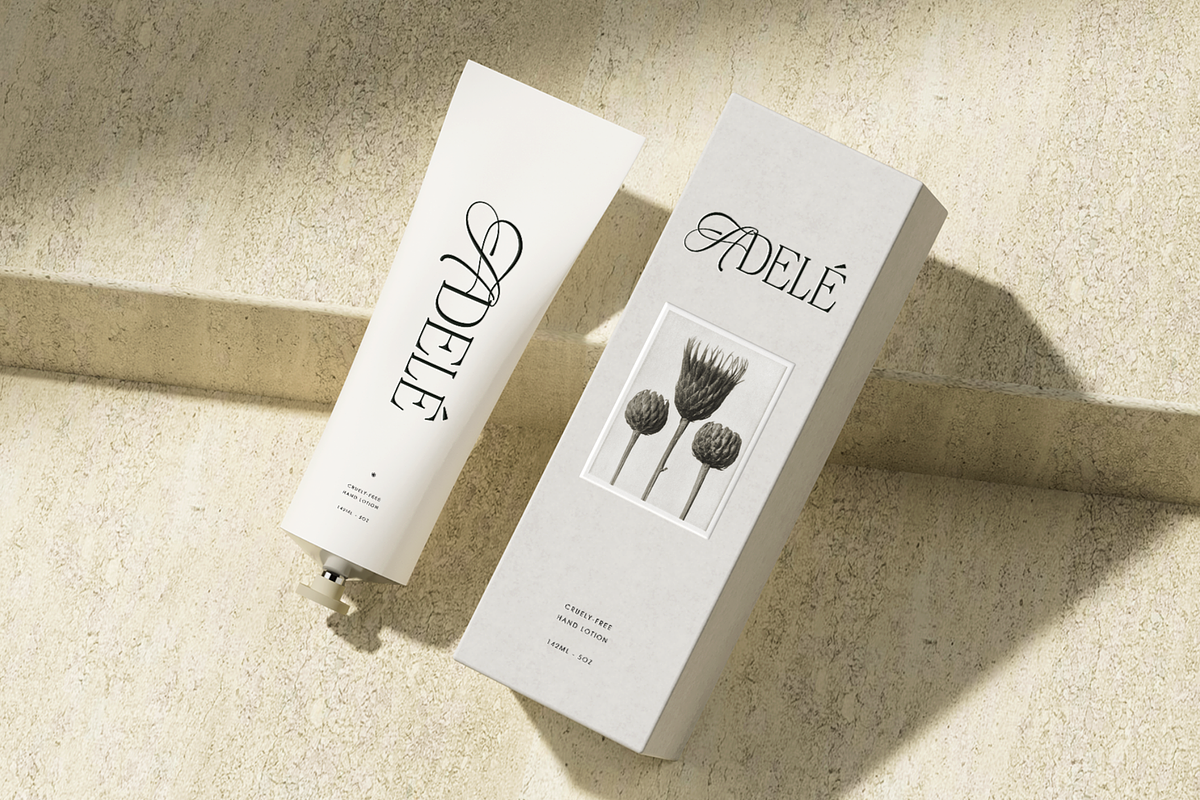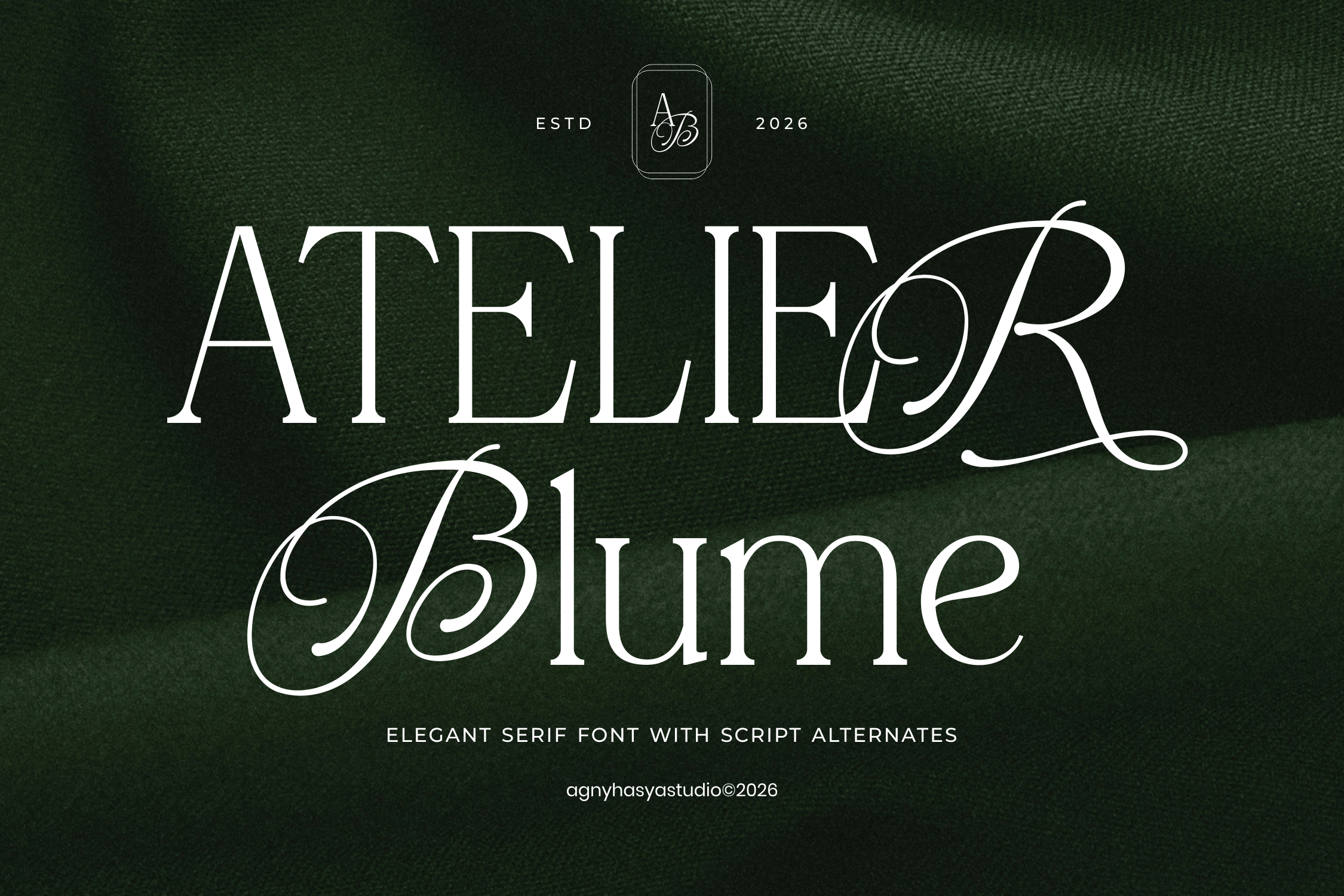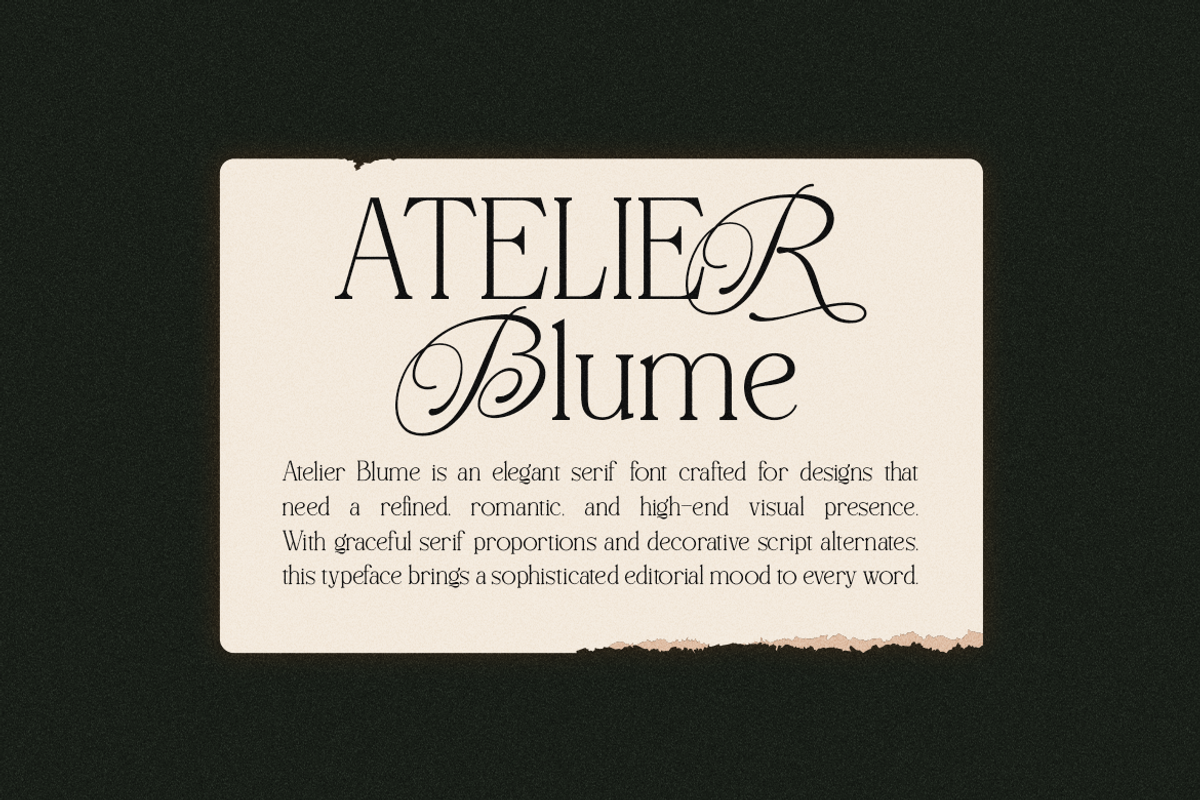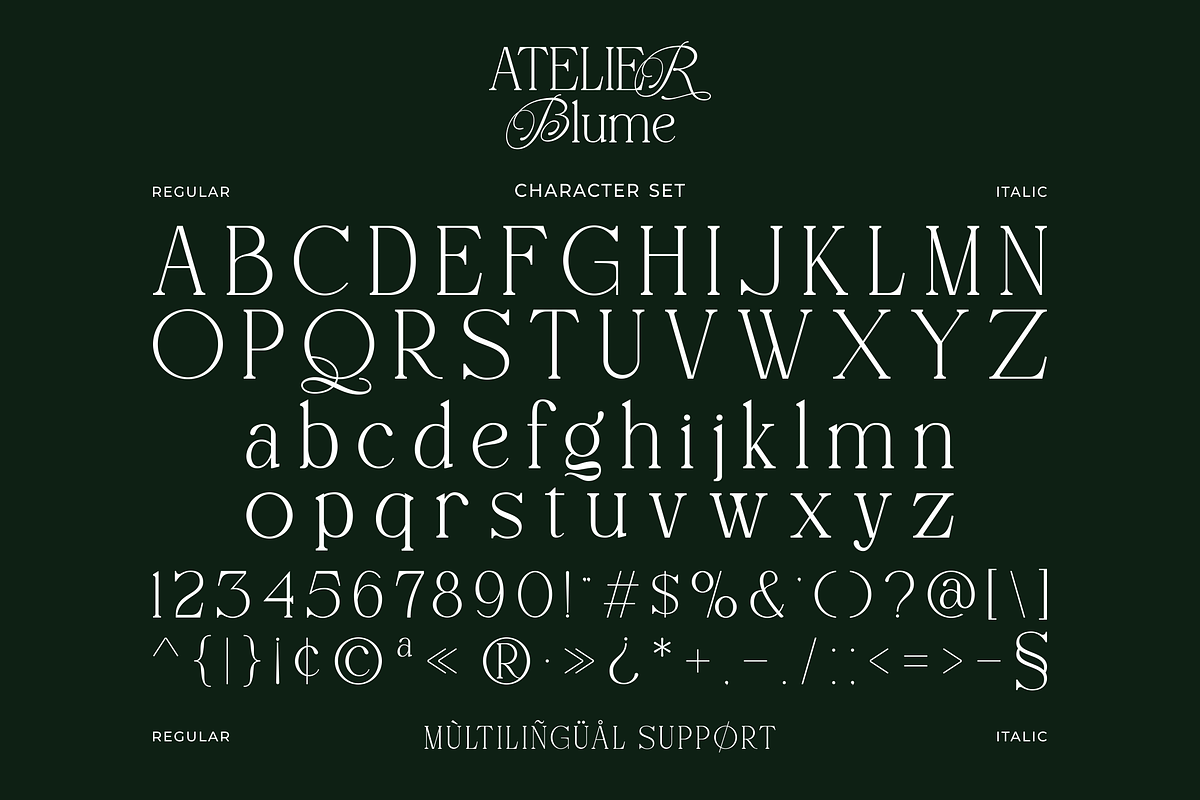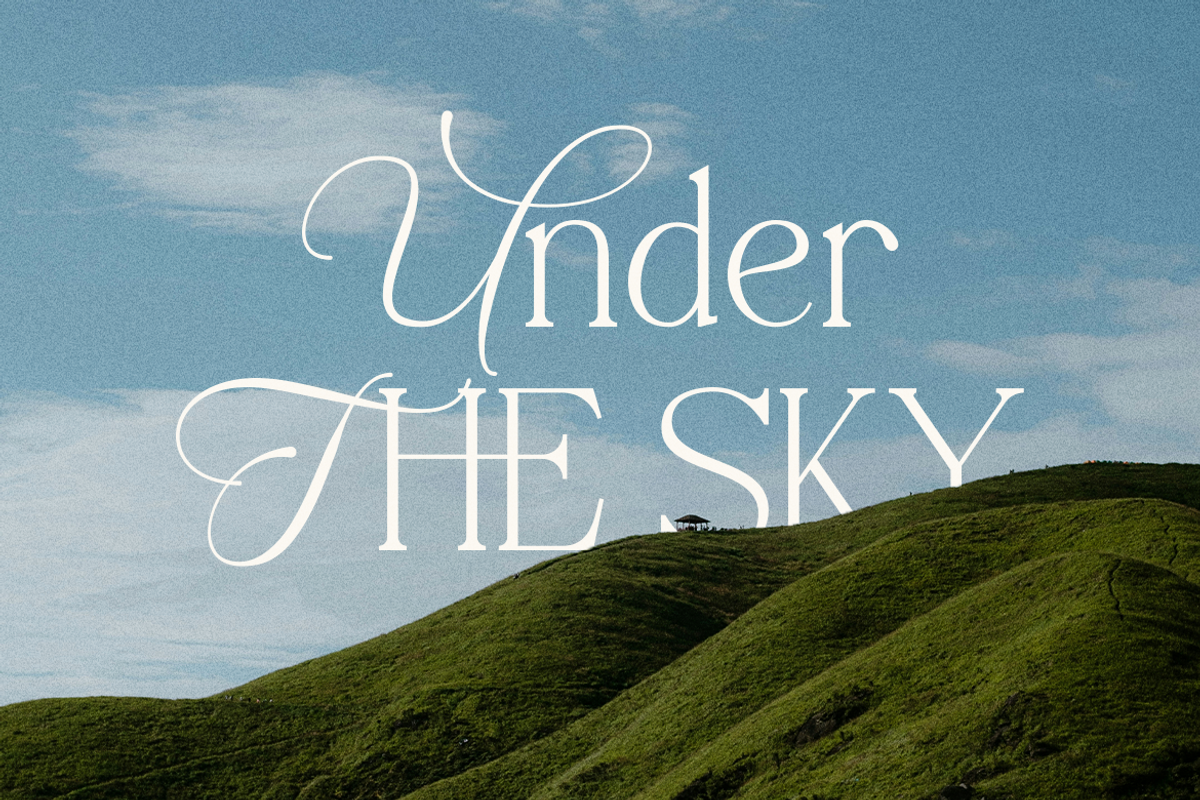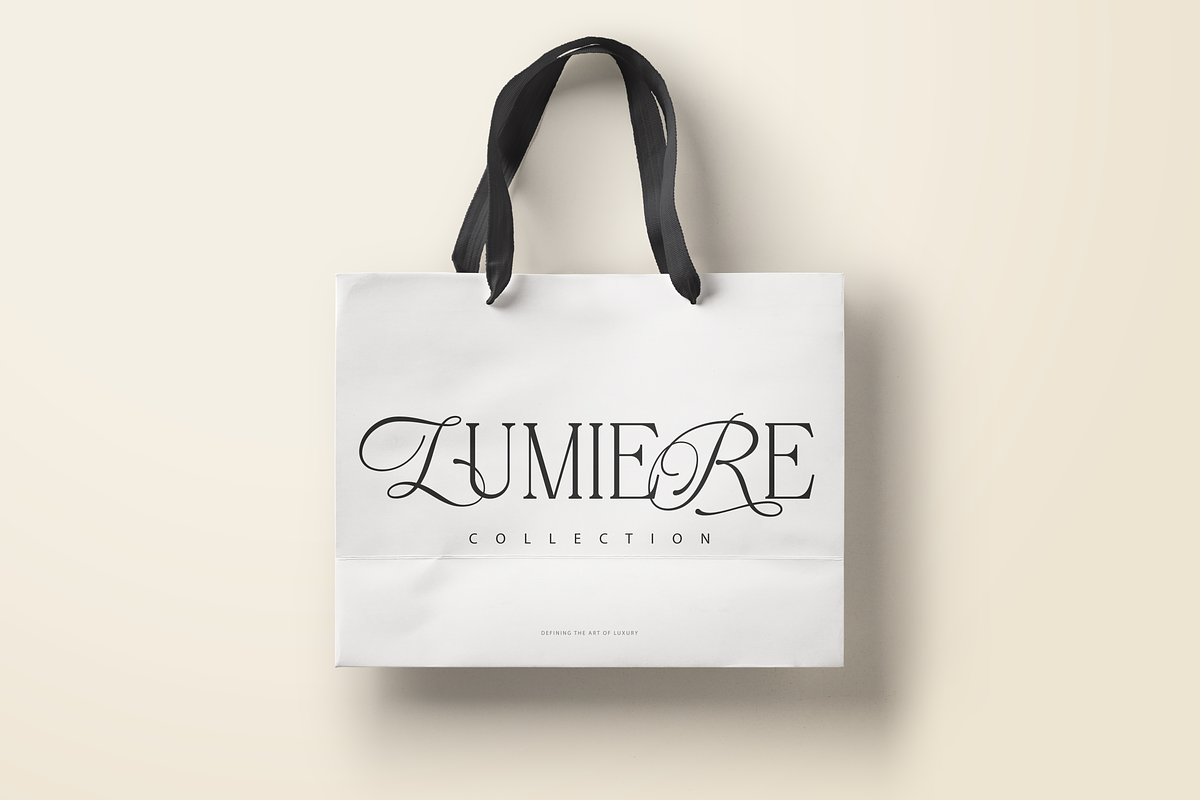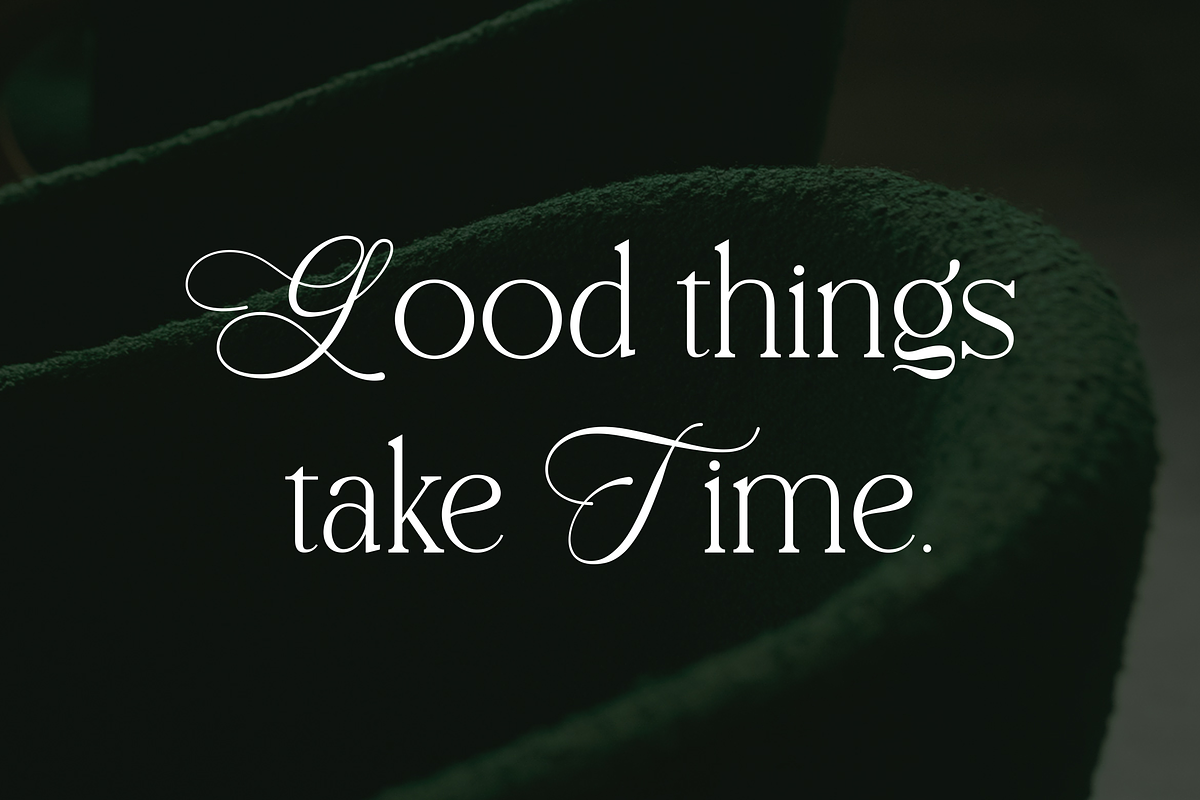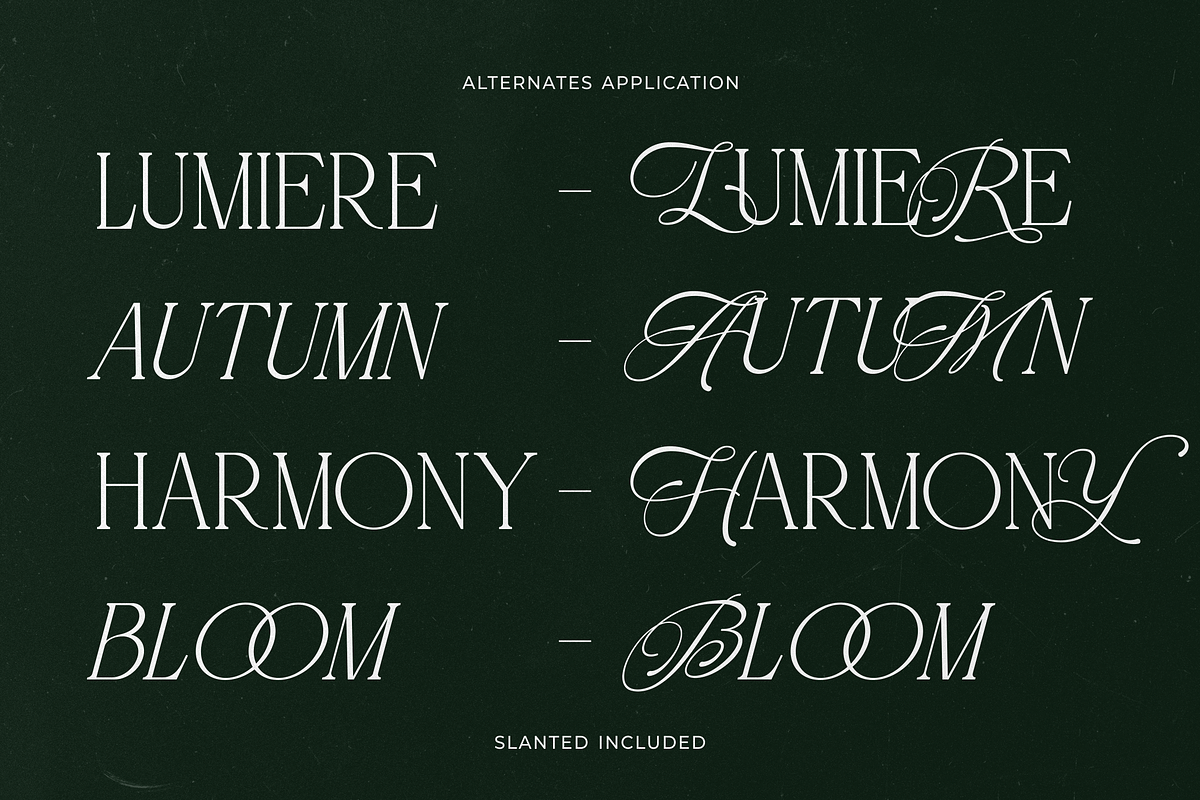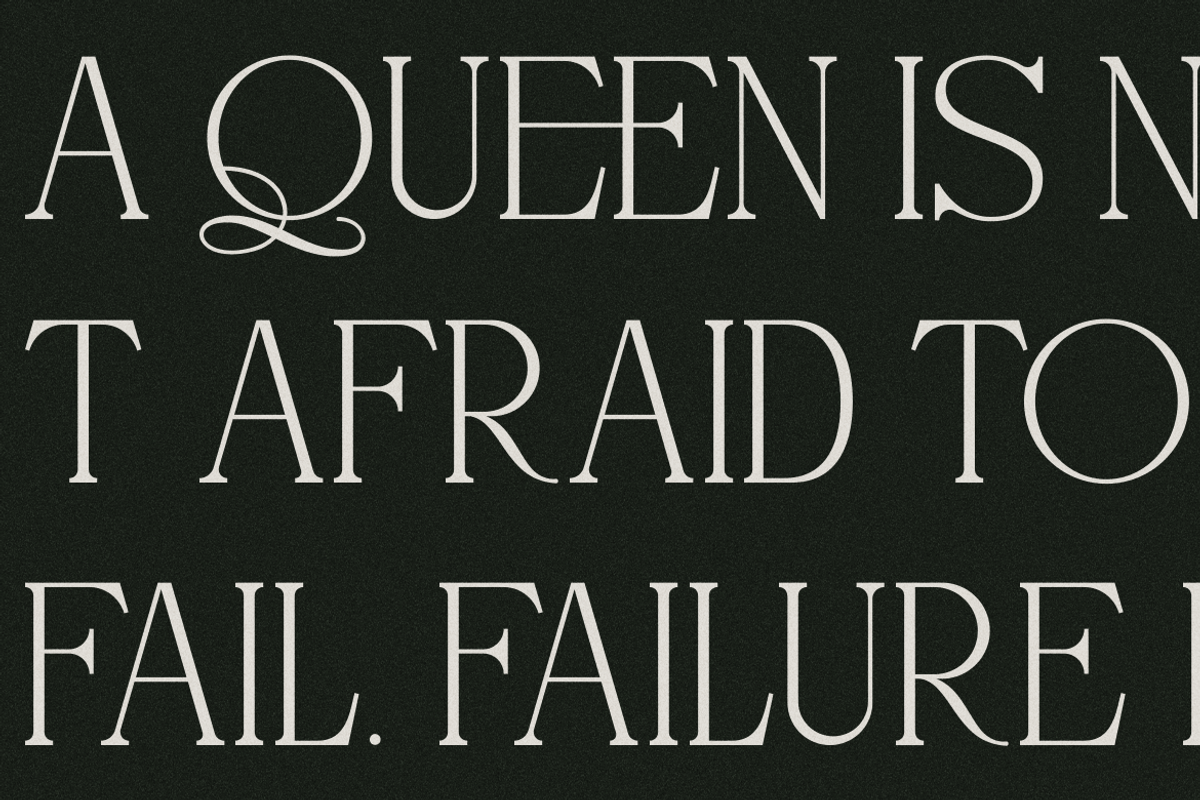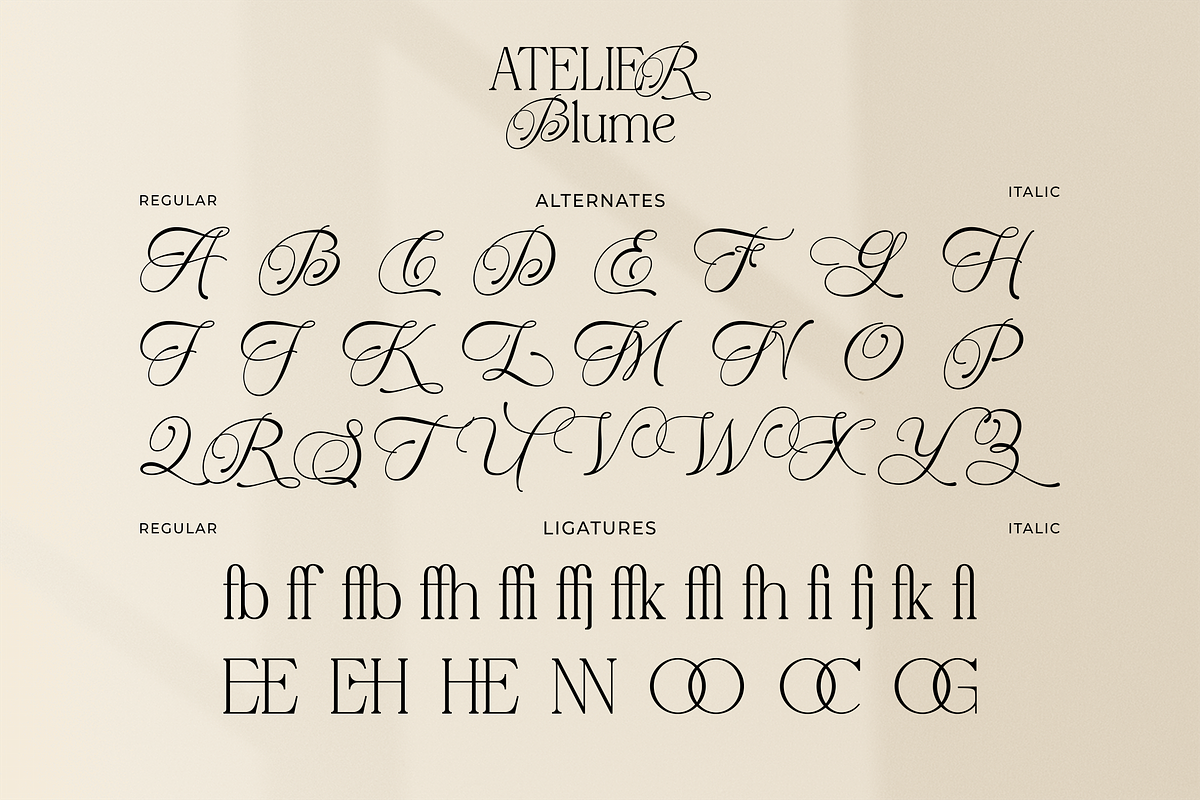
Atelier Blume - Serif & Script Font
Looking for an Elegant Serif Font with a Romantic Script Touch?
Meet Atelier Blume, an elegant serif font crafted to bring refined beauty, romantic charm, and high-end editorial style to your typography.
With graceful serif proportions, decorative script alternates, elegant ligatures, and an included slanted style version, Atelier Blume gives your design a polished, custom-lettered feel. It is perfect for projects that need to feel feminine, luxurious, artistic, and memorable.
Elegant logos and refined wordmarks
Wedding invitations and romantic stationery
Fashion, beauty, jewelry, and perfume branding
Boutique packaging and product labels
Floral studio branding and luxury event design
Editorial headlines and magazine layouts
Art galleries and creative studio identities
Social media graphics and premium brand visuals
Modern lifestyle design and high-end branding typography
Why You’ll Love It
Atelier Blume is designed to combine the timeless readability of an elegant serif font with the expressive movement of decorative script details.
Its clean serif structure keeps your typography refined and professional, while the script alternates add personality, softness, and a handcrafted signature touch. The included slanted style version also gives you more flexibility to create graceful emphasis, elegant contrasts, and dynamic typographic compositions.
This makes Atelier Blume a beautiful choice for both digital and print projects that need a romantic, editorial, and premium visual presence.
Elegant serif letterforms
Slanted style version included
Decorative script alternates
Beautiful ligatures
Refined editorial character
Feminine and romantic visual style
Uppercase and lowercase letters
Numerals and punctuation
Bring refined elegance to your next logo, invitation, packaging, editorial layout, or luxury branding project with Atelier Blume.